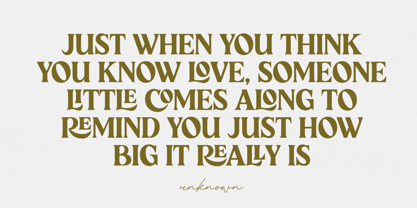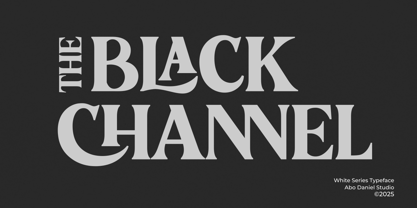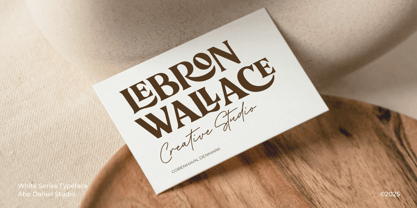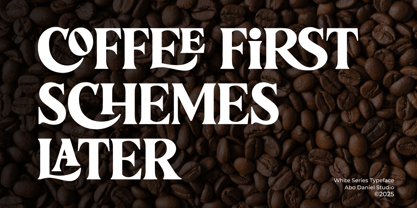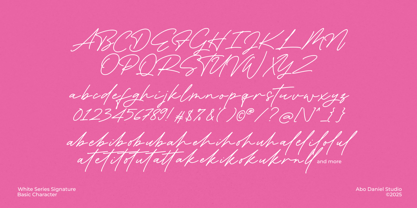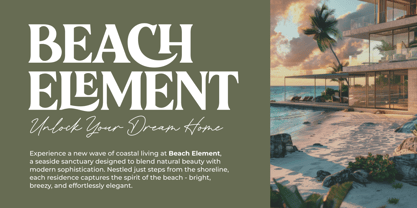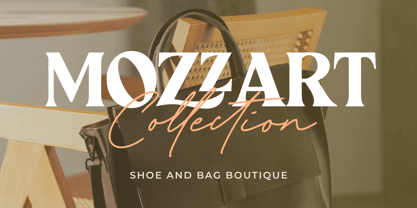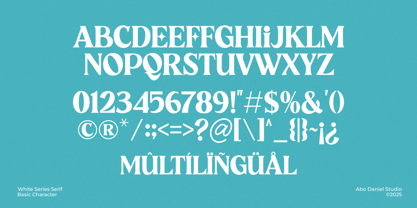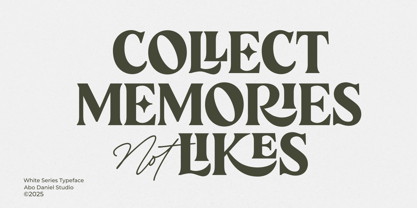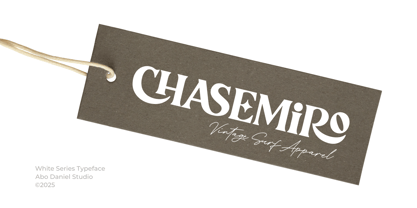
White Series
by Abo Daniel
The White Series Font Family was designed by Abo Daniel and published by Abo Daniel. White Series contains 2 styles and family package options. More about this family
White Series is an elegant duo that combines timeless grace with modern charm. Featuring a refined serif and a flowing signature script, these two fonts complement each other like perfect partners—balanced, stylish, and effortlessly sophisticated. The serif font provides structure and poise, while the signature script adds a personal, graceful touch. Together, White Series creates a harmonious aesthetic ideal for branding, logos, cards, invitations, and any designs that deserve a touch of class. This beautiful pair is crafted to impress—simple, elegant, and endlessly versatile, making it suitable for various applications in both print and digital media.